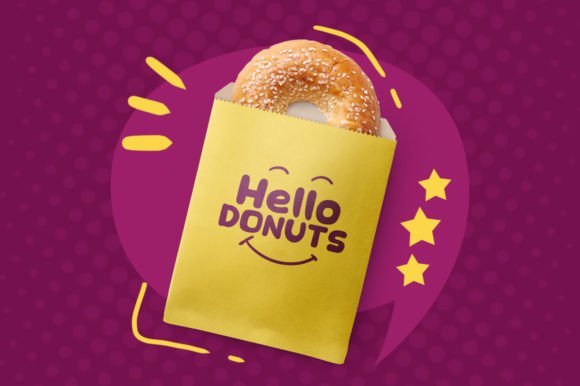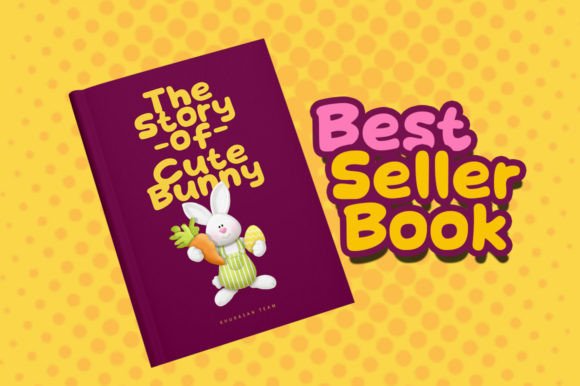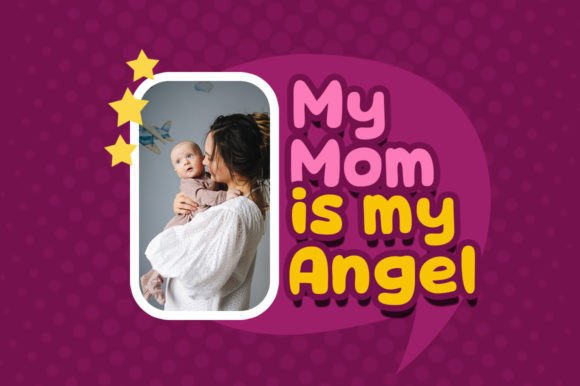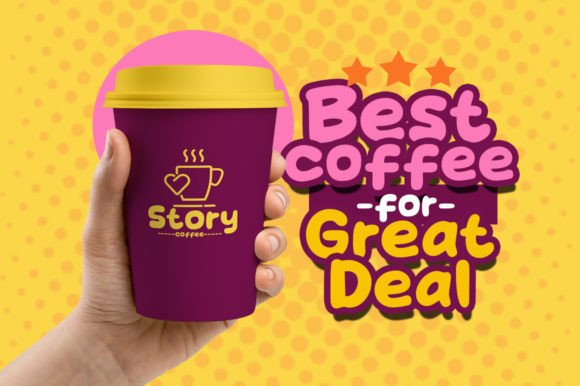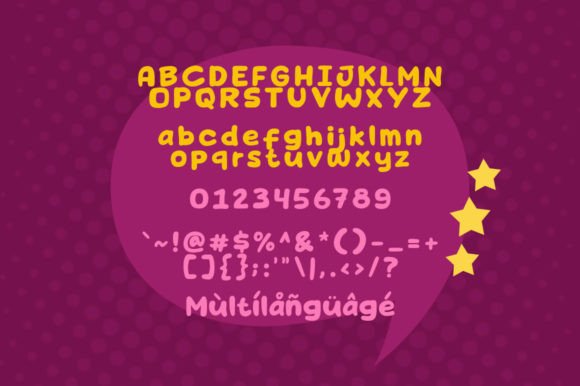
Introduction to Howdy Comic Font Font
Fonts play a crucial role in design, and the Howdy Comic Font font is a typeface that brings both character and versatility to any project. Whether you’re working on a branding project, a website, or a print design, the Howdy Comic Font font offers a unique style that can elevate your work.
Howdy Comic is a modern and fancy display font perfect for posters, logos, magazines, book covers, banners, and many more.
Get this amazing font, and use it to create lovely designs It can easily be matched to an incredibly large set of projects, so add it to your creative ideas and notice how it makes them stand out.
Key Features of Howdy Comic Font Font
Why Choose Howdy Comic Font Font?
The Howdy Comic Font font is more than just a typeface – it’s a design tool that helps you communicate your message with style and clarity. Its unique character set and versatile design make it suitable for a wide range of applications, from elegant invitations to bold headlines.
With its carefully crafted letterforms and balanced proportions, the Howdy Comic Font font ensures readability and visual appeal across all mediums.
What makes Howdy Comic Font font special?
The Howdy Comic Font font stands out with its unique design, exceptional readability, and versatility across various design applications.